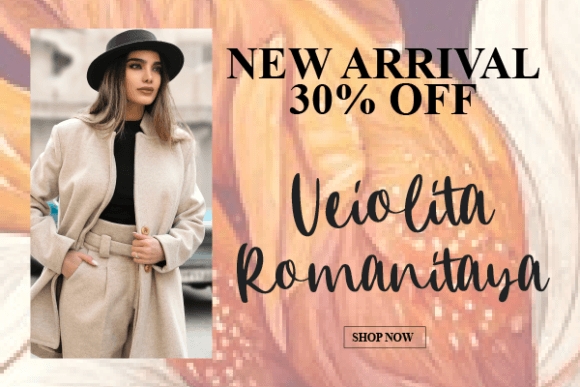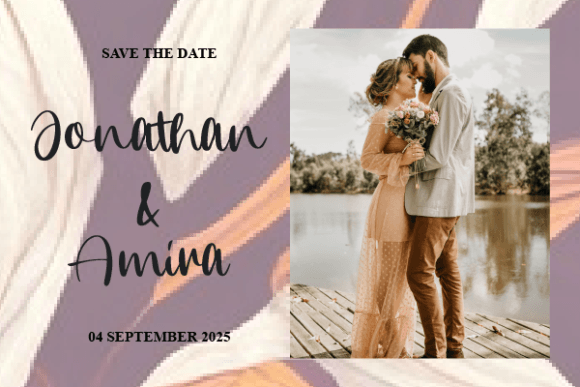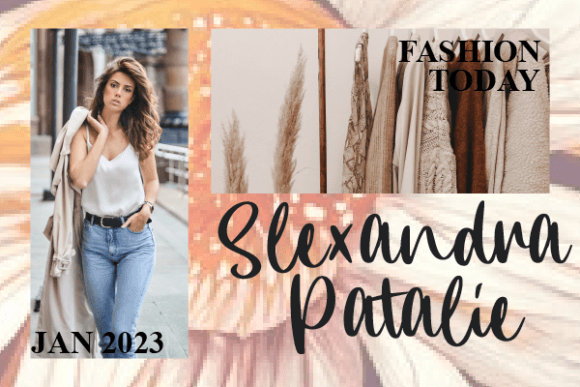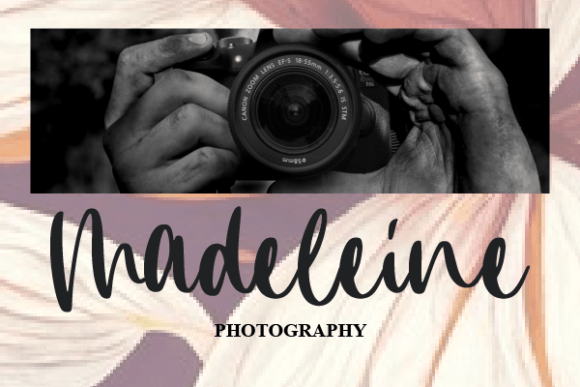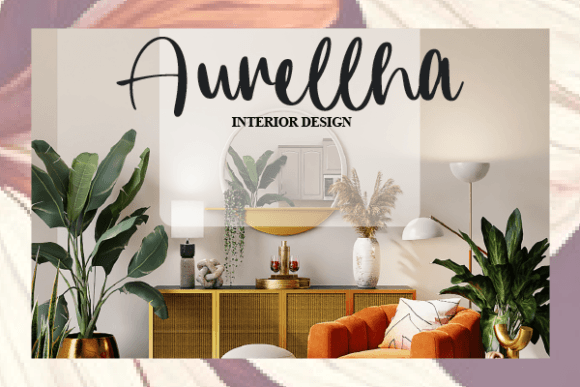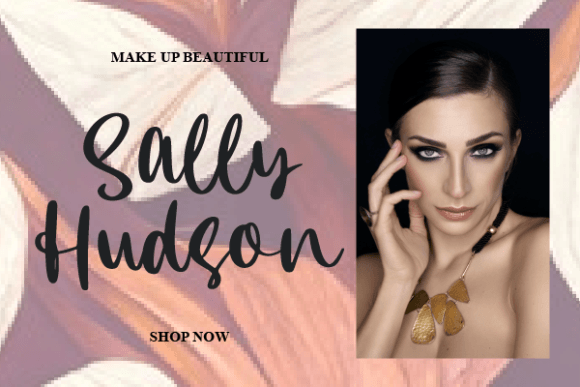
Introduction to Sheikha Benjamin Font
Sheikha Benjamin is a lovely and timeless handwritten font.
It is the best choice for creating eye-catching logos, branding, and quotes Every letter has a unique and beautiful touch, which will make your design come alive.
Why Choose Sheikha Benjamin Font?
Sheikha Benjamin Font offers exceptional quality and versatility, making it a valuable addition to your design toolkit. Whether you’re creating for personal projects or commercial use, Sheikha Benjamin Font delivers professional results.